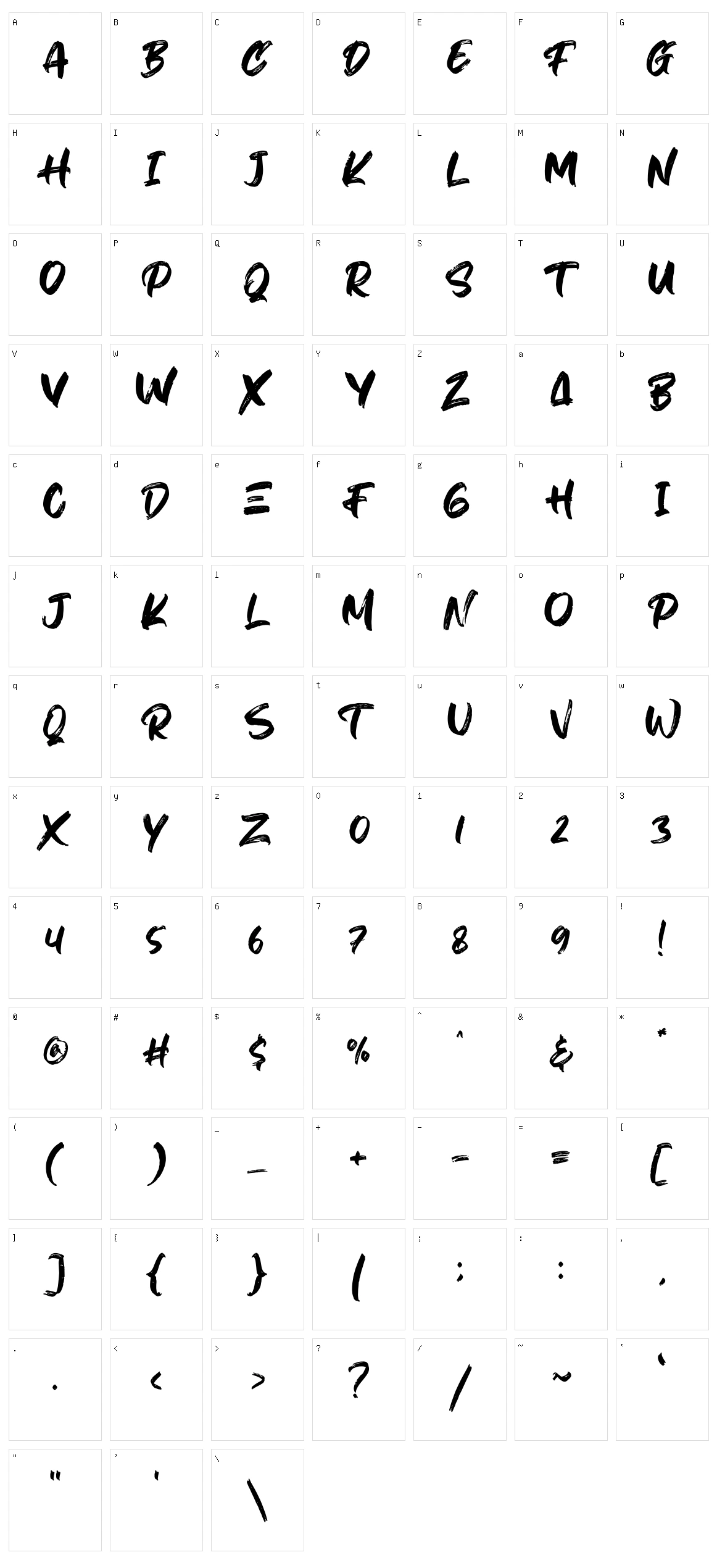
The free font Hiruzen Exist is carefully designed by StringLabs Creative Studio, showcasing a thoughtful balance of creativity and usability and falls under the Script font style. When you download the ZIP file, it contains only 245.18 KB of font files, making it lightweight and quick to download. Please review the license details below to understand permitted usage and distribution rights. If license information is not available, we recommend using this font for personal projects only or contacting the author directly for commercial usage permissions.